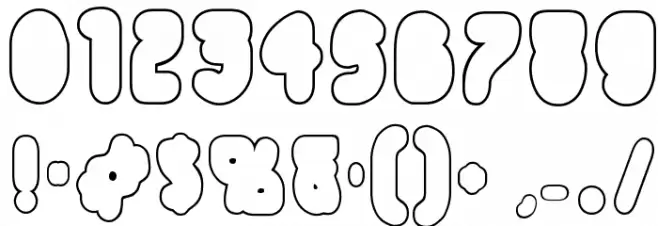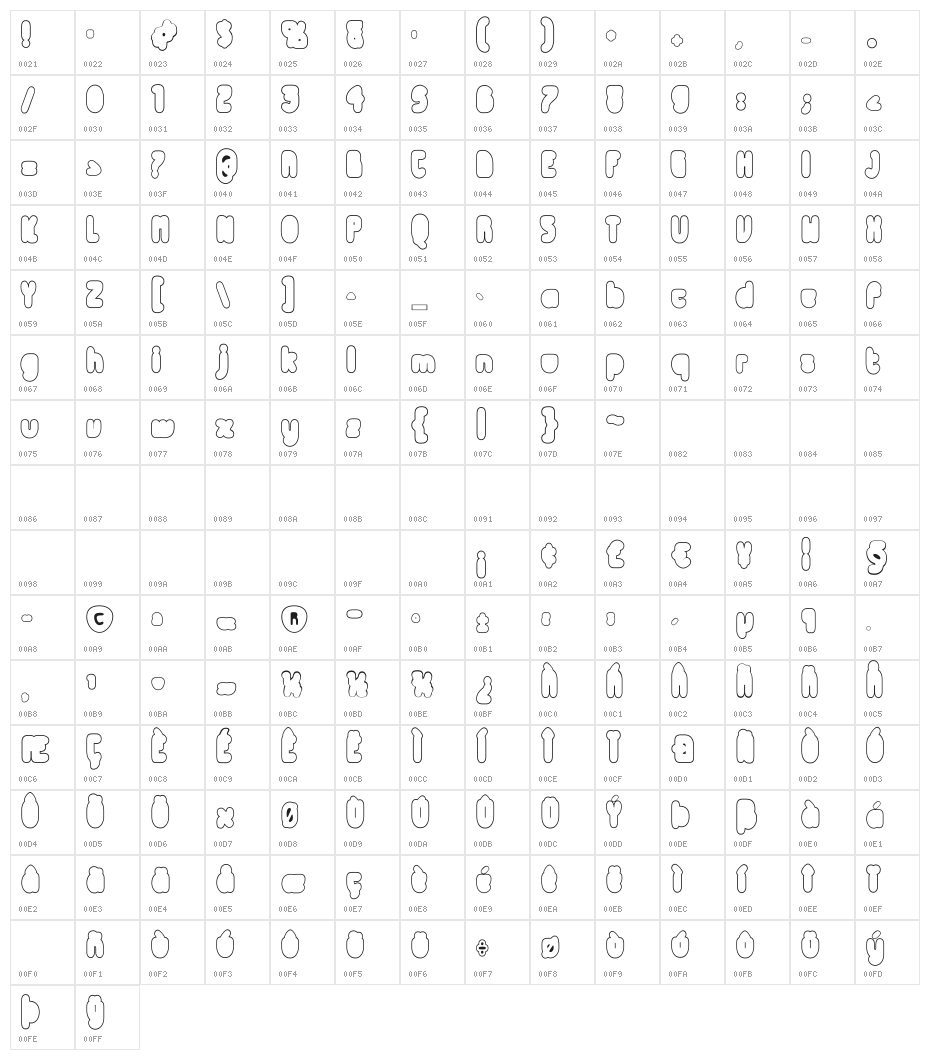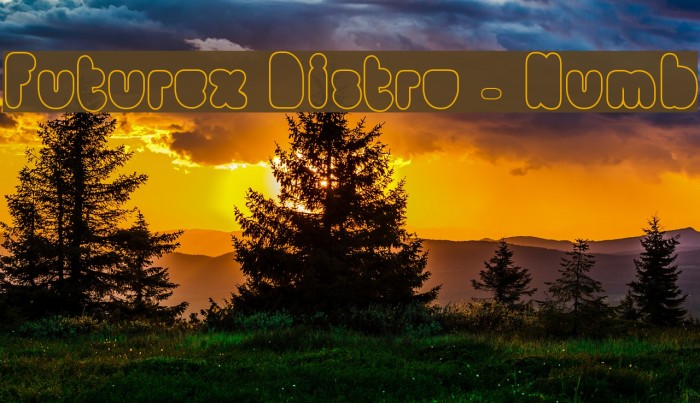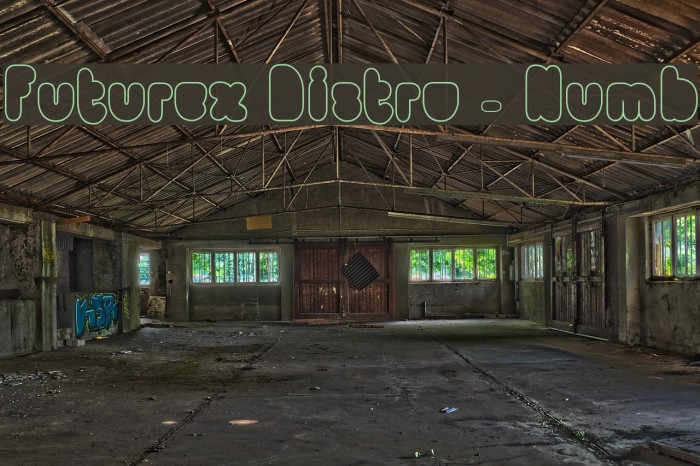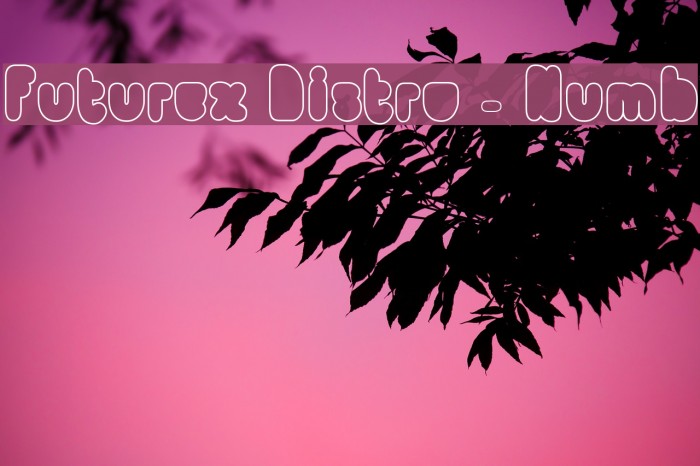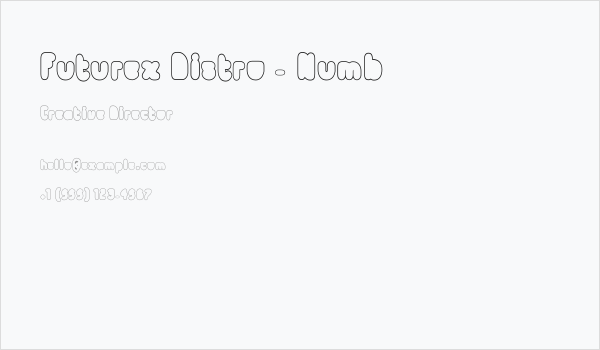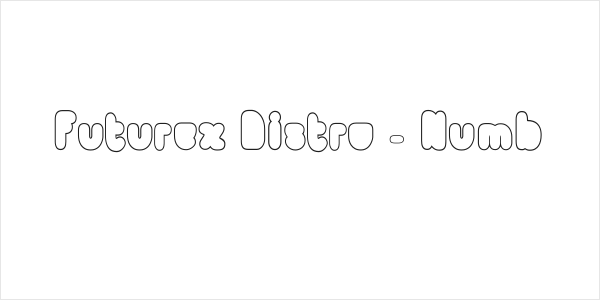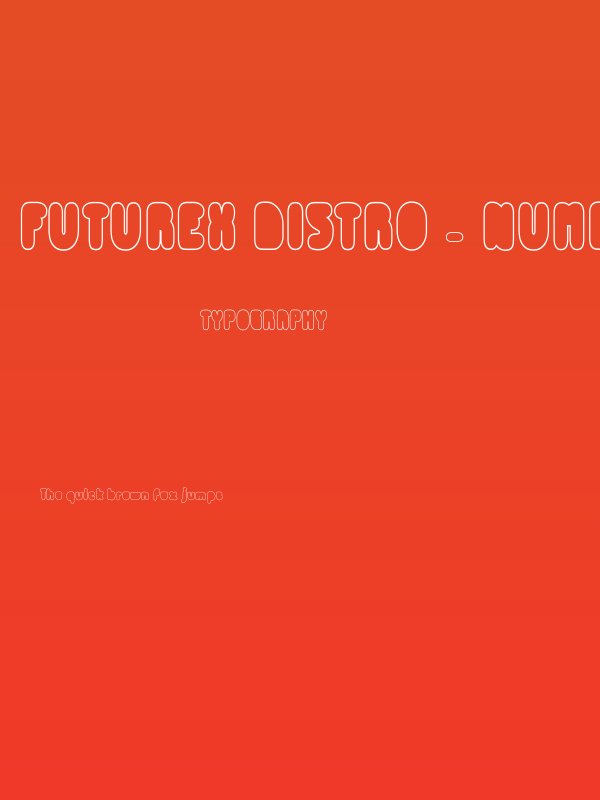
Futurex Distro - Numb Font
Futurex Distro - Numb Description
This playful and bold font features rounded, bubble-like characters that exude a sense of fun and creativity. The letters are thick and evenly spaced, with a consistent stroke width that gives them a uniform appearance. The uppercase and lowercase letters maintain a cohesive style, with the lowercase letters mirroring the playful curves of their uppercase counterparts. The numbers are similarly styled, with a chunky, rounded form that complements the overall aesthetic. Special characters are included, maintaining the same bubbly and whimsical design. This font is perfect for projects that require a lighthearted and engaging touch.